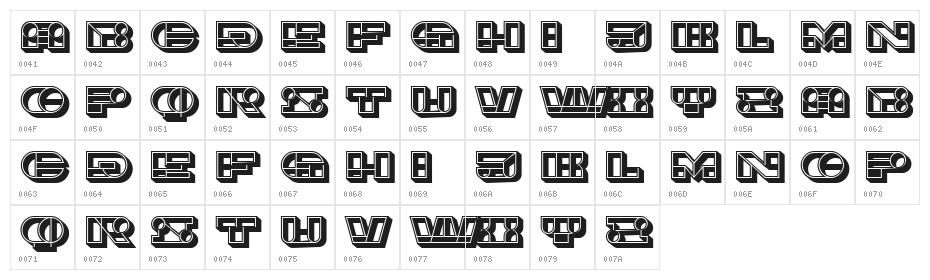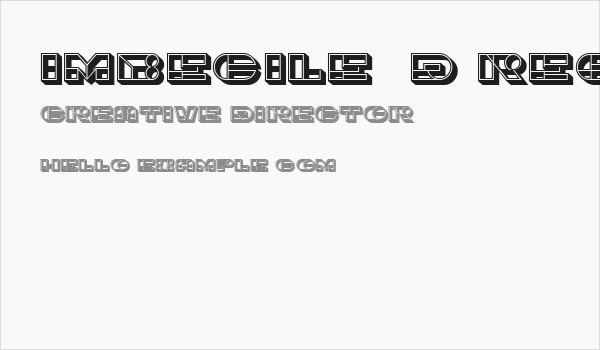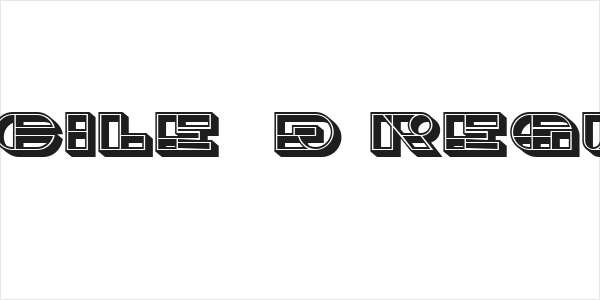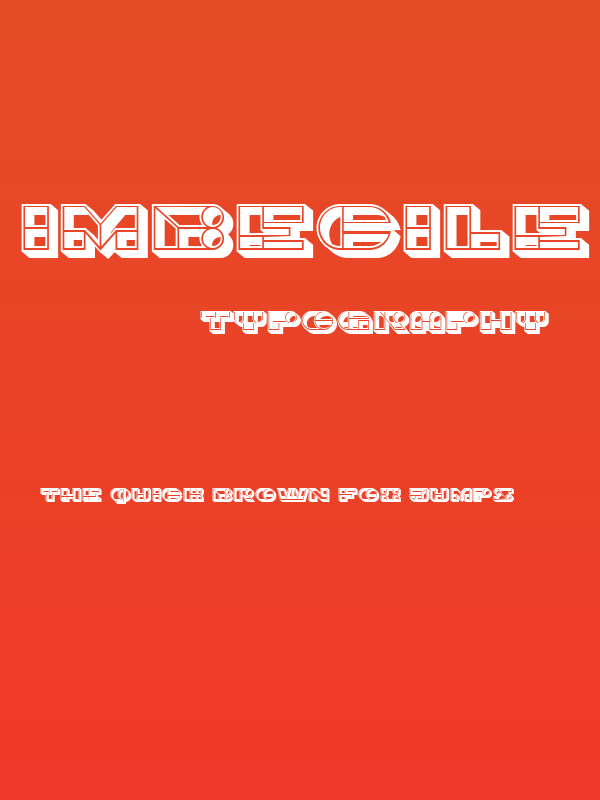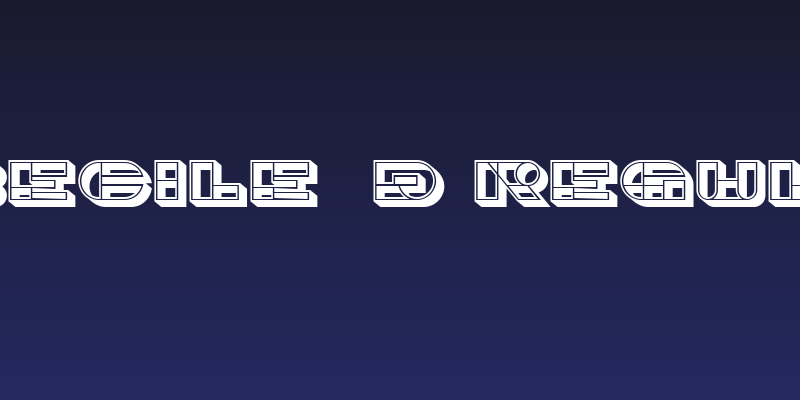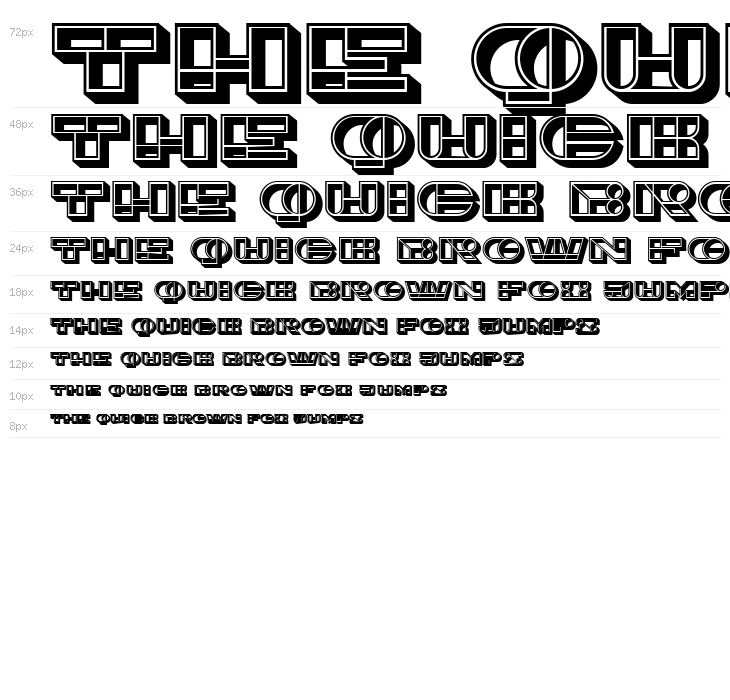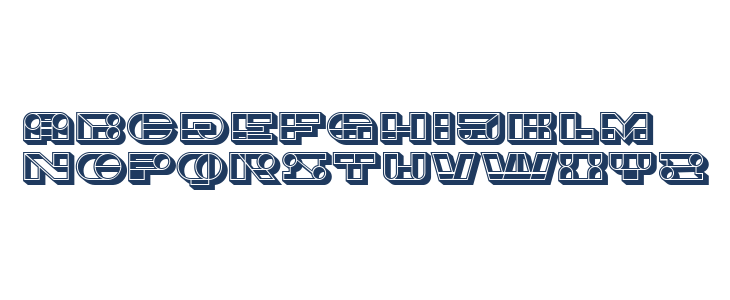
Imbecile 3D Regular Font
Imbecile 3D Regular Description
This font features a bold, three-dimensional design with a distinct geometric style. Each character is constructed with a combination of solid and outlined elements, creating a layered effect that gives the impression of depth. The use of sharp angles and clean lines contributes to its modern and futuristic appearance. The font is highly decorative, making it ideal for eye-catching designs. Its unique structure is consistent across all characters, providing a cohesive look. The uppercase letters are particularly striking, with intricate details that enhance the 3D effect. This font is perfect for projects that require a bold statement and a touch of creativity.
Overall StyleModern, Decorative
Proposed ProjectsIdeal for posters, logos, video game graphics, and any project needing a bold, futuristic look.